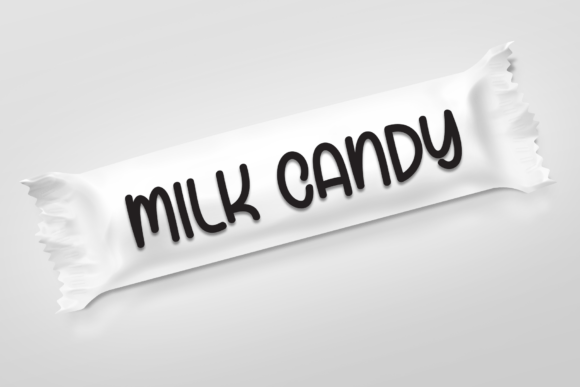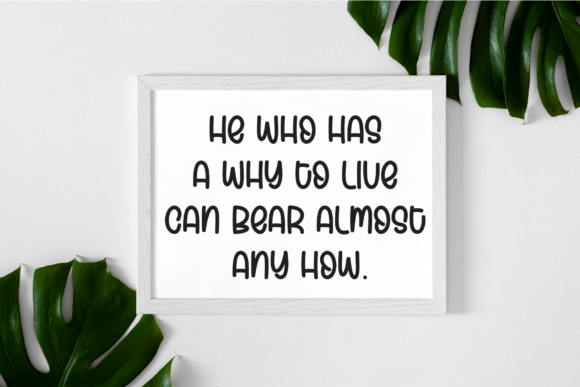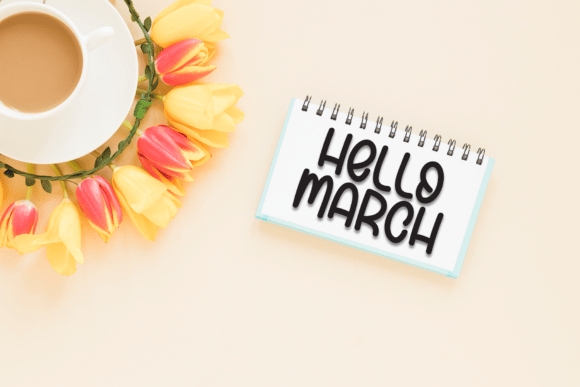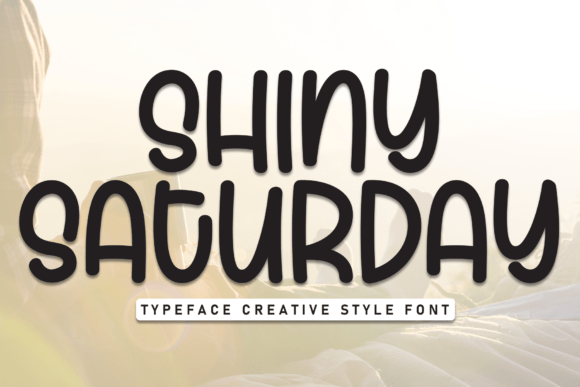
Introduction to Shiny Saturday Font
This handwritten display font brings charm and character to every letter.
With its playful strokes and casual flow, it captures the essence of authentic handwritingβ€”perfect for quotes, greeting cards, branding, and anything that needs a personal, heartfelt touch Whether you’re crafting for kids or designing a modern logo, this font adds warmth and whimsy to your work.
Shiny Saturday Font offers exceptional quality and versatility, making it a valuable addition to your design toolkit. Whether you’re creating for personal projects or commercial use, Shiny Saturday Font delivers professional results.